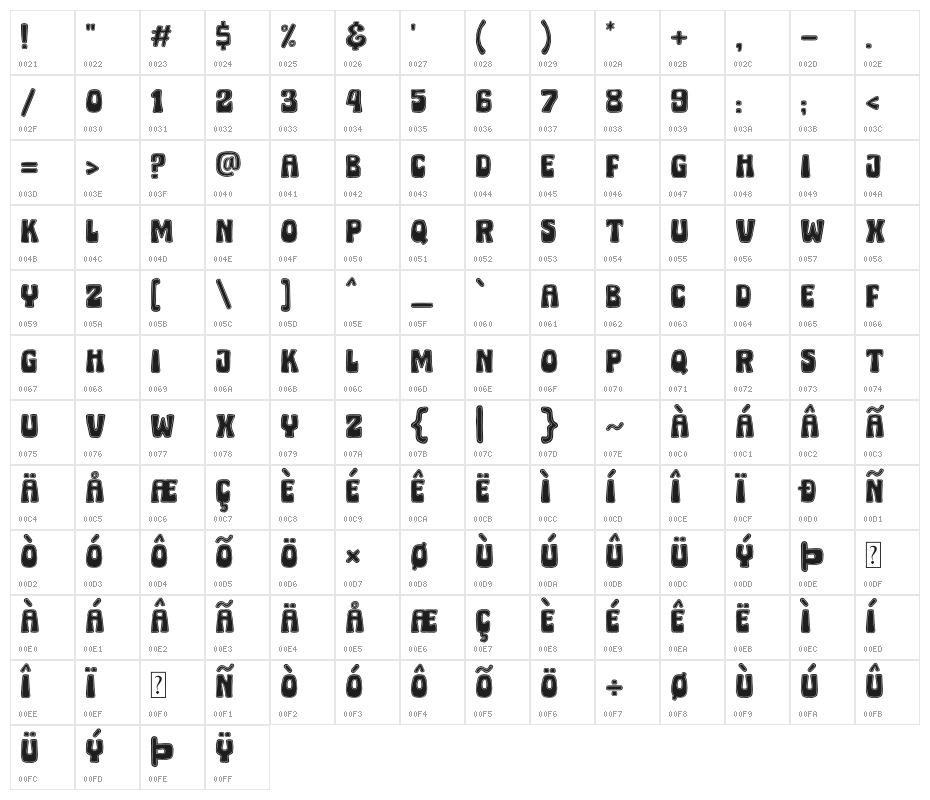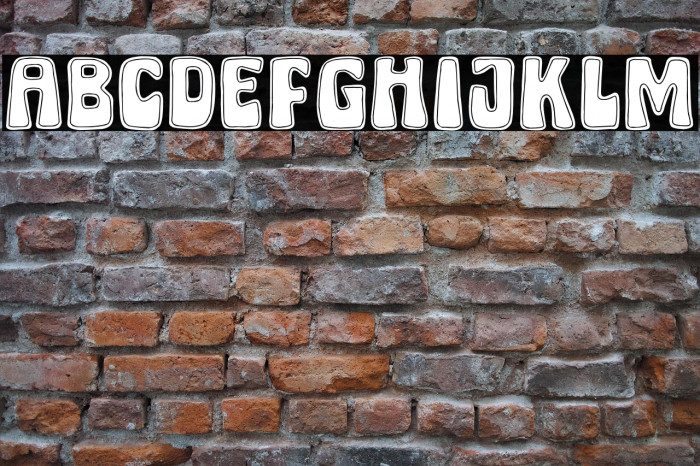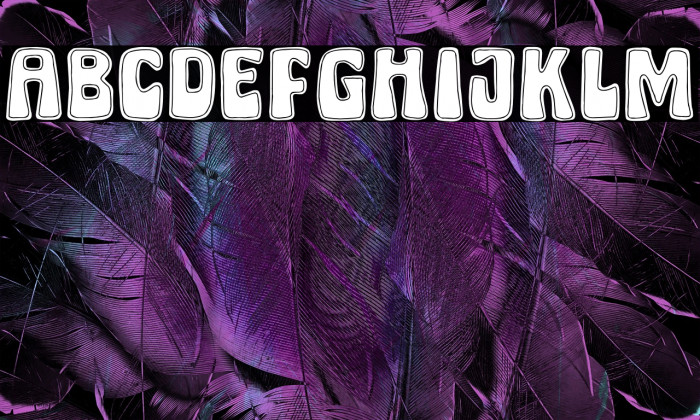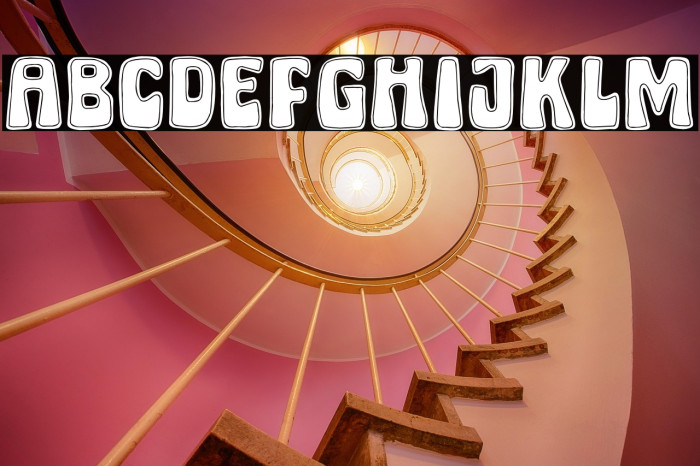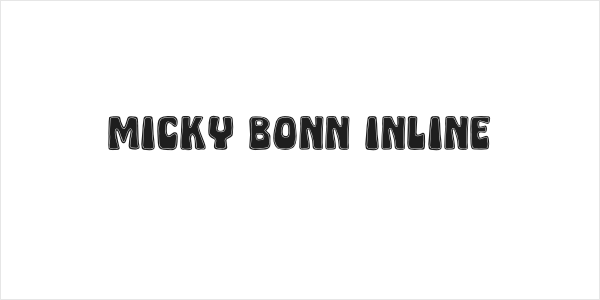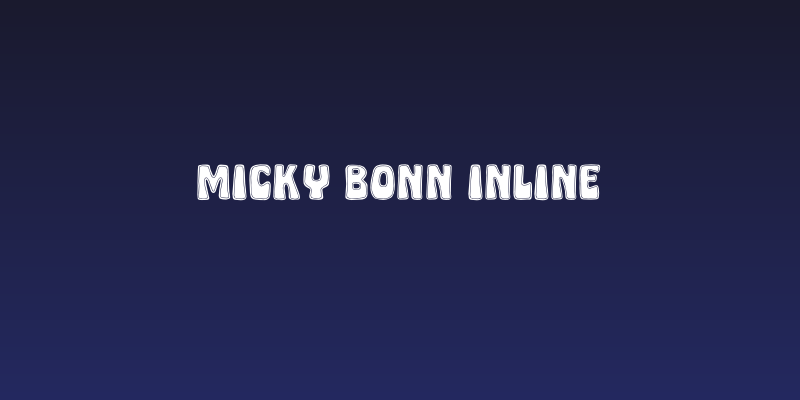
Micky Bonn Inline Font
Fonts by Subectype & Orenari
| Общий стиль | Playful, Modern |
| Рекомендуемые проекты | Ideal for children's books, playful branding, posters, and creative advertising campaigns. |
| Автор | Fonts by Subectype & Orenari |